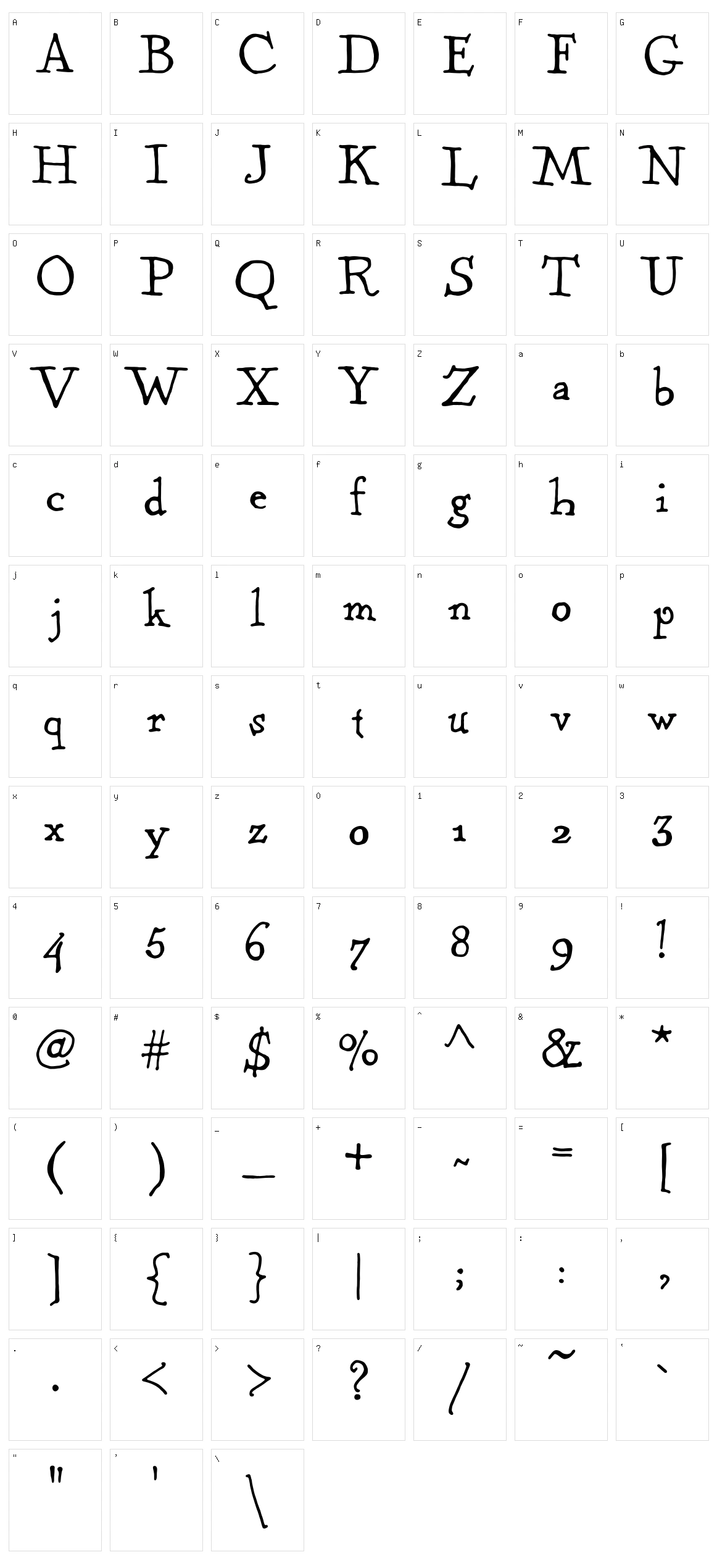
KENTUCKY FIREPLACE
A Font by S. John Ross
As with many of my hand-drawn fonts, KENTUCKY FIREPLACE was born for fantasy cartography, while mapping the world of Uresia: Grave of Heaven (look for it if you enjoy fantasy worlds!), but I named it for Kentucky because it was a mellow evening with some bourbon involved.
KENTUCKY FIREPLACE is a full-U.S.-keyboard set with a couple of extras. Enjoy!